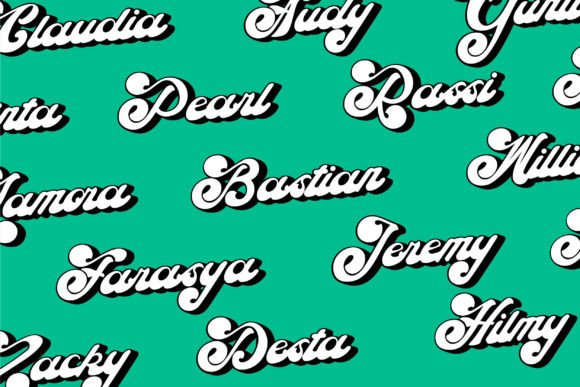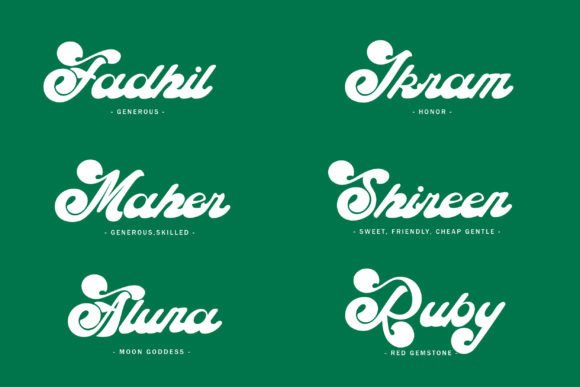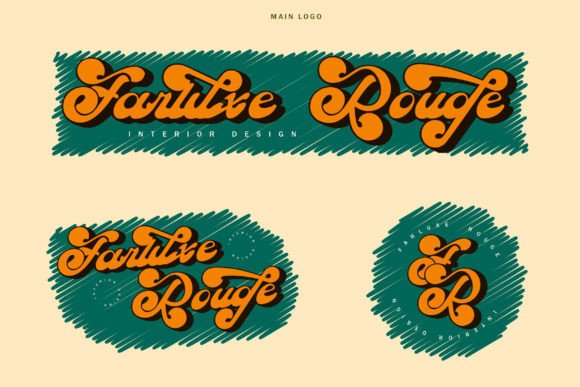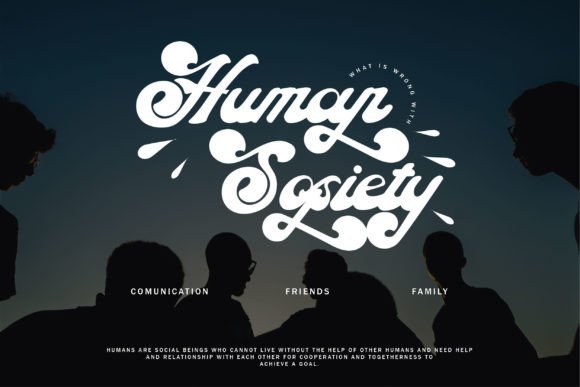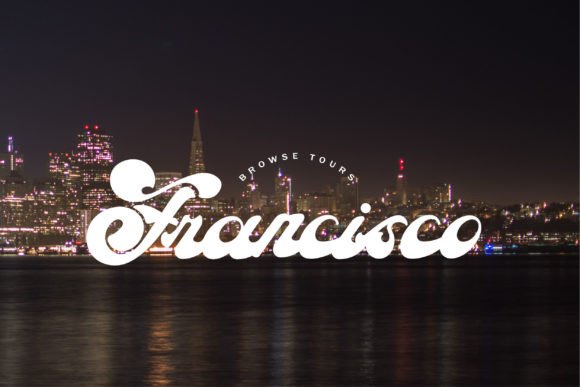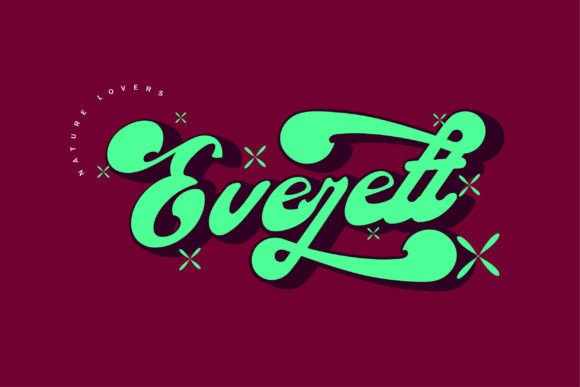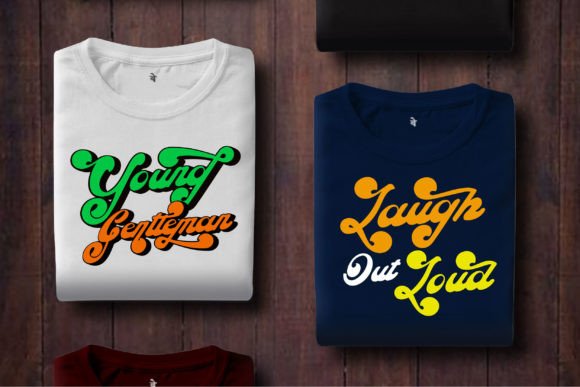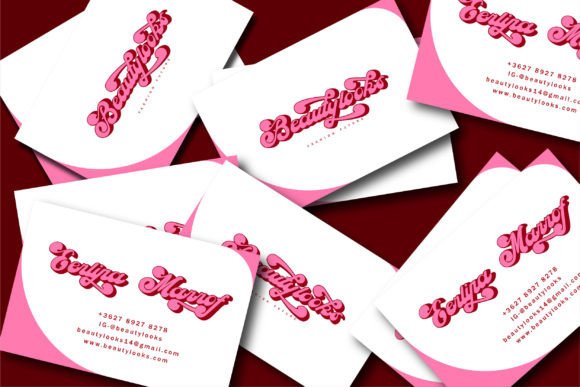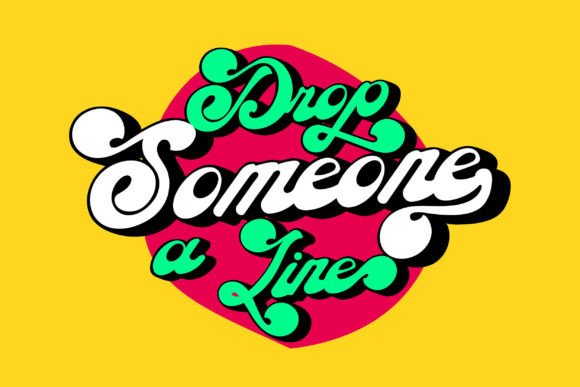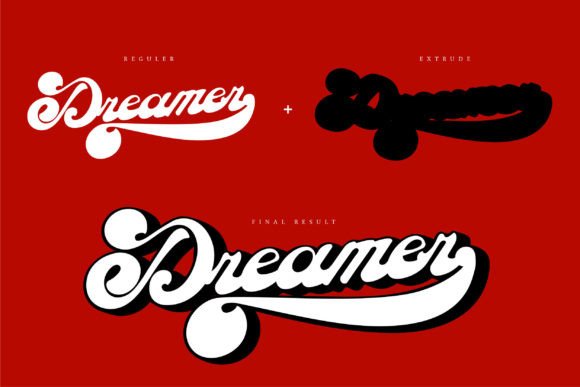
The Hipster Font
Bring Vintage Style to Life with The Hipster Font
The Hipster Font is a stylish retro script typeface that blends vintage aesthetics with modern usability. Designed with gentle curves and smooth lines, this font offers a nostalgic touch to any creative project. Whether you’re designing branding elements, social media graphics, or product packaging, The Hipster delivers a cool and confident look that stands out.
Perfect for Retro-Inspired Design Projects
Looking to infuse your designs with a touch of vintage charm? The Hipster Font is an excellent choice for:
• Logo and branding design
• T-shirt graphics and merchandise
• Posters, flyers, and retro event promotions
• Social media posts and YouTube thumbnails
• Product labels, packaging, and handcrafted items
Its classic curves and casual flow make it ideal for work that requires a hint of the past without feeling outdated.
Why Choose The Hipster Font?
There are many script fonts on the market, but The Hipster Font stands out with its retro vibe, clean strokes, and high usability. Here’s what makes it a designer’s favorite:
• Retro script style with elegant, flowing letters
• Smooth, curved lines that add character and charm
• PUA encoded, granting full access to glyphs, swashes, and ligatures
• Flexible usage for both digital and print applications
• Works well with modern or vintage color schemes
Make Every Design Feel Authentic
Typography plays a crucial role in setting a tone, and The Hipster Font offers an authentic, nostalgic atmosphere. Its handwritten script flow feels personal and stylish, yet refined. That means your design can feel handcrafted and intentional without looking amateurish.
Additionally, its legibility ensures that it maintains visual impact whether it’s scaled large for a billboard or small for a label.
A Must-Have for Every Font Collection
In summary, The Hipster Font is a bold yet friendly script that brings a retro flair to your toolbox. It’s playful yet professional, ideal for creative entrepreneurs, designers, and hobbyists alike.
Let The Hipster Font add a vintage twist to your design story. With easy-to-access glyphs and its smooth, confident curves, it’s ready to shine across logos, apparel, stationery, and so much more.